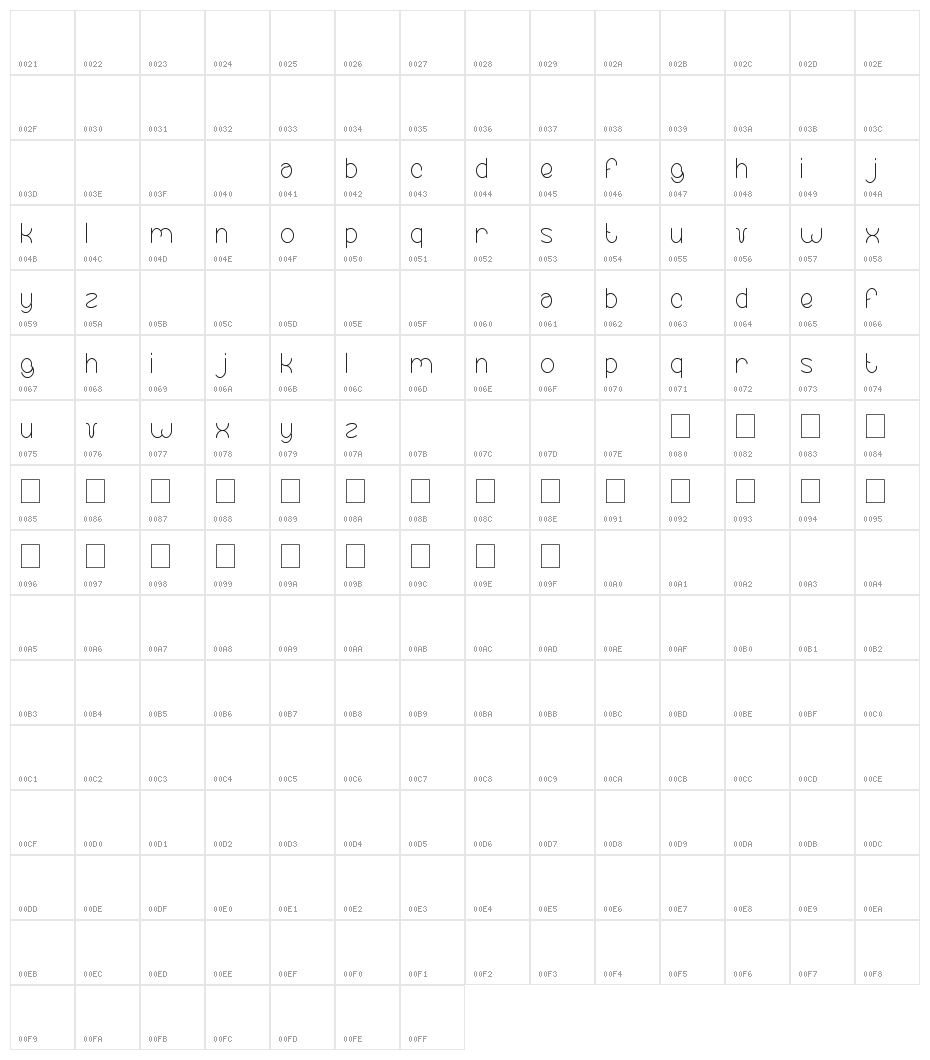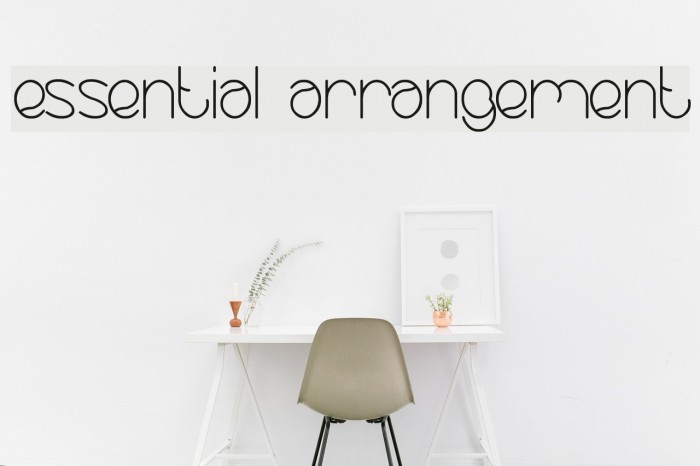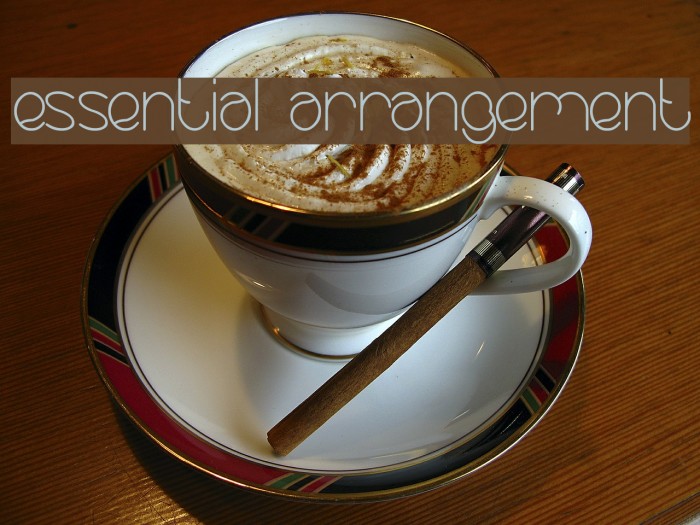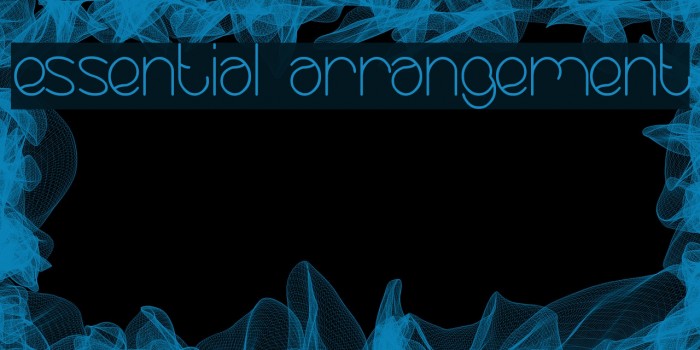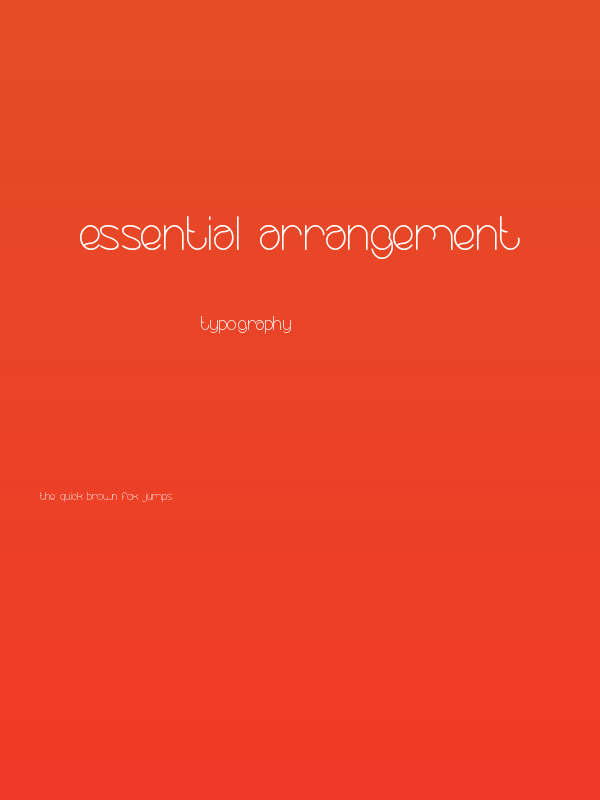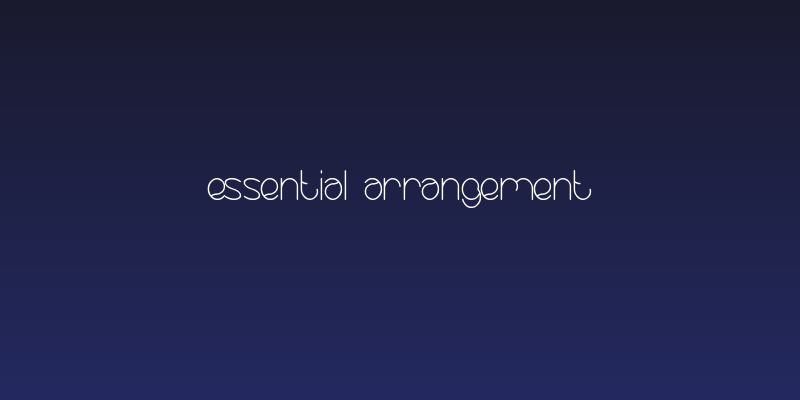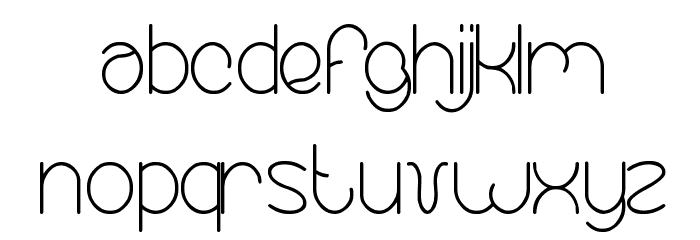
essential arrangement Font
essential arrangement Description
This font features a unique and modern design with a minimalist aesthetic. The characters are composed of thin, uniform lines that create a clean and airy appearance. The rounded edges and smooth curves give it a friendly and approachable feel. The lowercase letters exhibit a consistent height, contributing to a harmonious and balanced look. The overall design is sleek and contemporary, making it suitable for a variety of creative applications.
| Use Case | Logos, Headlines |
| Proposed Projects | Ideal for branding, logos, and modern web design projects. |